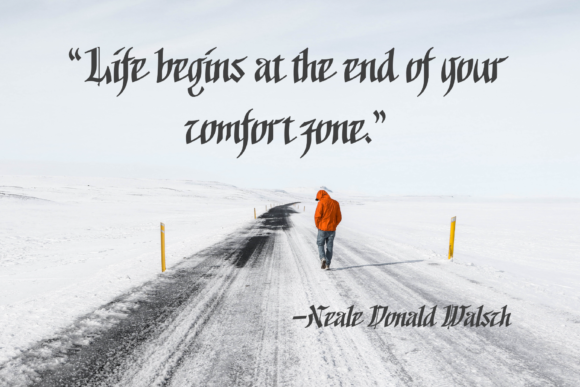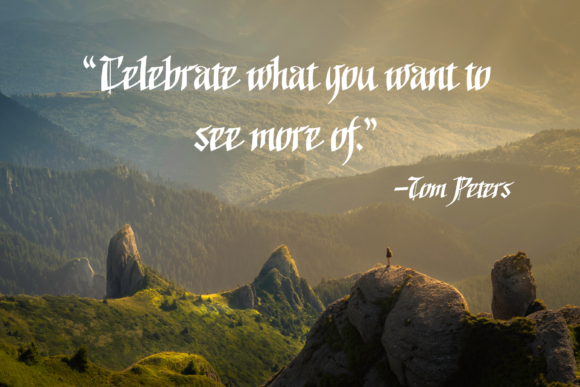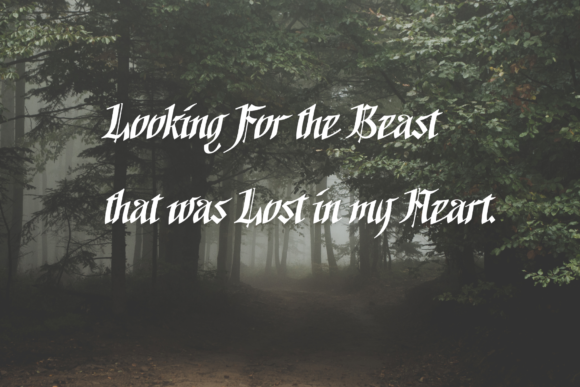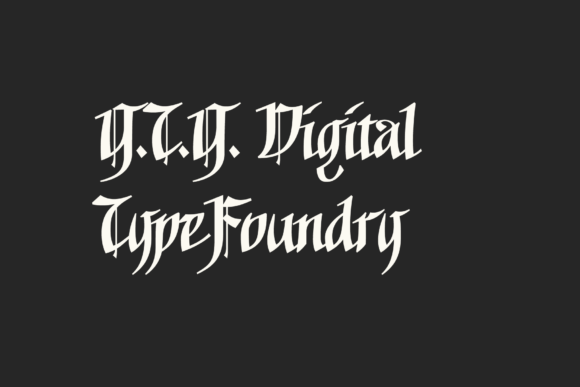
Introducing Goalthink Font: Elevate Your Designs with a Touch of Elegance
In the world of typography, a font can make or break a design. For crafters, designers, and creative enthusiasts, finding the perfect font is akin to discovering a treasure trove of possibilities. If you’re on the hunt for a typeface that exudes sophistication, modernity, and a dash of uniqueness, look no further than the Goalthink Font. This stunning blackletter font is poised to revolutionize your creations, lending them an otherworldly charm that captivates and mesmerizes.
The Essence of Goalthink Font
Goalthink is a graceful and modern blackletter font, expertly crafted to transcend conventional design boundaries. Its elegant strokes and contemporary flair make it an exceptional choice for a wide array of projects, from artistic endeavors to commercial ventures. Whether you’re designing a logo, crafting a brand identity, or simply looking to add a personal touch to your digital or print creations, Goalthink Font is your gateway to unparalleled typographic excellence.
Why Choose Goalthink Font?
• Versatility: Goalthink Font boasts a versatile design that adapts seamlessly to various contexts. Its unique blackletter style, infused with modern sensibilities, ensures that your designs stand out, whether they’re aimed at a traditional audience or a contemporary crowd.
• Elegance: The font’s graceful lines and curves bring an air of sophistication to any project. Its elegant appearance makes it perfect for designs that require a touch of luxury, creativity, or innovation.
• Readability: Despite its intricate design, Goalthink Font maintains remarkable readability. This balance between aesthetics and functionality makes it an ideal choice for both headings and body text, ensuring your message is conveyed with clarity and style.
• Uniqueness: In a sea of fonts, Goalthink stands out with its distinctive blackletter style, offering a refreshing alternative to more traditional typefaces. This uniqueness allows your designs to break free from the ordinary, capturing attention and sparking curiosity.
Applications of Goalthink Font
The versatility of Goalthink Font lends itself to a multitude of applications across various design disciplines. Here are a few ideas to get you started:
• Branding and Logos: Create a lasting impression with a logo that embodies your brand’s personality and values. Goalthink Font’s modern blackletter style can help you craft a unique identity that sets you apart.
• Digital and Print Media: Elevate your website, blog, or social media content with stylish headings and body text. For print materials like brochures, posters, and business cards, Goalthink Font adds a professional yet creative flair.
• Art and Craft Projects: Whether you’re working on handmade crafts, illustrations, or mixed media art, this font can add a thematic and visually appealing element to your work.
Tips for Using Goalthink Font Effectively
To maximize the impact of Goalthink Font in your designs, consider the following tips:
• Experiment with Sizes: Play with different font sizes to create visual hierarchy and emphasis, ensuring your design communicates effectively.
• Pair Thoughtfully: When combining Goalthink Font with other typefaces, choose fonts that complement its elegance and modernity, ensuring a cohesive look.
• Adjust Line Spacing: Optimize line spacing to enhance readability, especially in longer texts, without detracting from the font’s aesthetic appeal.
Font Name Goalthink Font
Author YTY Digital TypeFoundry
Goalthink Font is more than just a typeface; it’s a design statement. Its graceful and modern blackletter style offers a fresh perspective on typography, empowering designers and crafters to push the boundaries of creativity. Whether you’re aiming to create visually stunning designs, convey a sophisticated brand image, or simply add a personal touch to your projects, Goalthink Font is your ally in achieving typographic excellence. Embrace the elegance and versatility of Goalthink Font, and watch your creations soar to new heights.